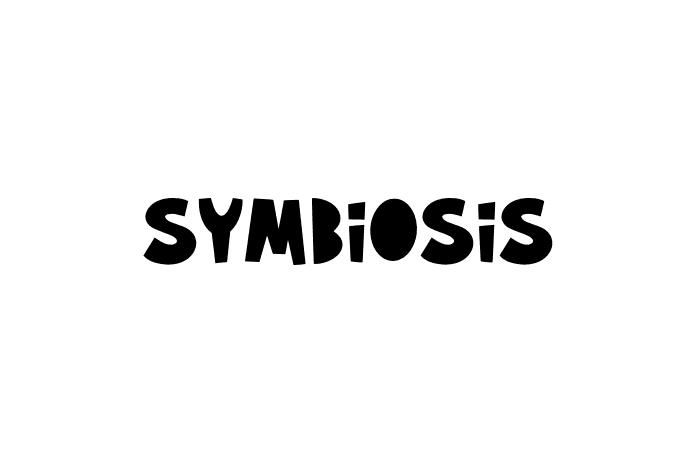
The Warrior
The Warrior Free
Introducing the new The Warrior Font, is a beautiful and Regular modern display cartoon typeface Great font for Video Games Fonts, Game Logo Design, poster title, headline, packaging,apparel projects, signature, album cover, this font designed by Nur Edi Prayitno is available for free download and personal use.
Font designer Nur Edi Prayitno
Typeface classification Cartoon,Fancy